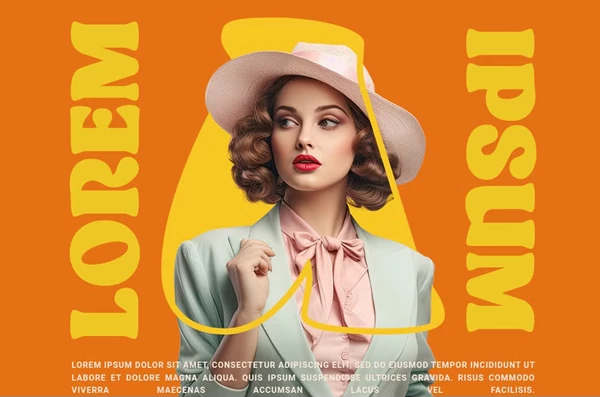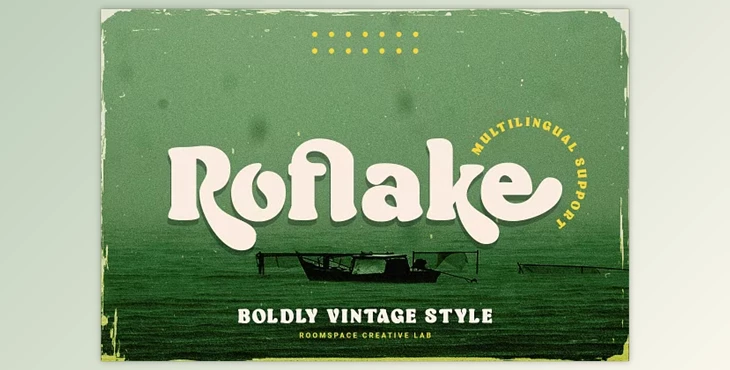
Roflake Font: Discover the timeless elegance of Roflake font, a harmonious fusion of classic vintage serif style with contemporary sophistication. With its rounded edges and gentle charm, Roflake offers a soft, inviting appearance perfect for various design projects.
How can we make our branding materials' text vintage and classic?
You can use "Roflake Font."
The regular version of Roflake exudes sturdiness and reliability, while its clear and easy-to-read letters ensure assertive communication. Vintage serif details add an extra layer of elegance, making Roflake ideal for conveying trustworthiness and professionalism.
Whether you're crafting branding materials, editorial layouts, or digital graphics, Roflake font provides the perfect balance of classic sophistication and modern appeal to elevate your projects and captivate your audience.